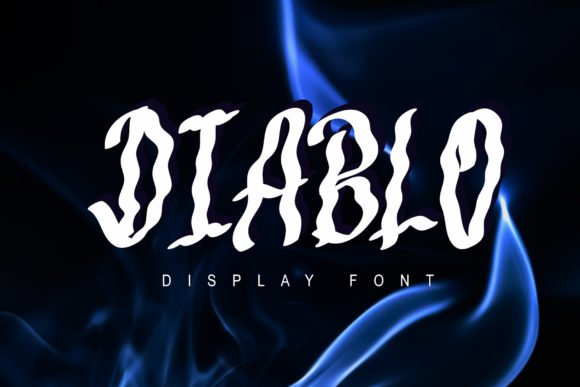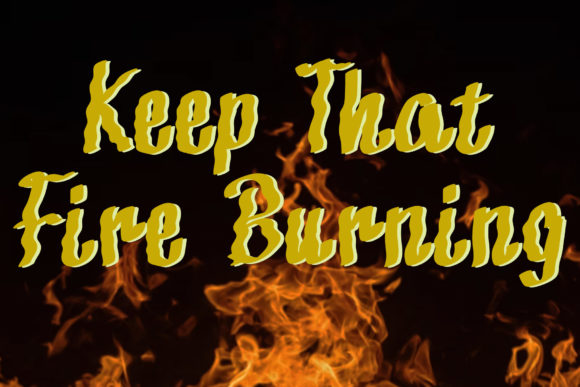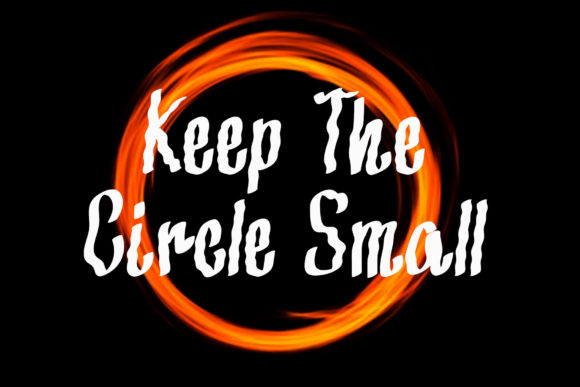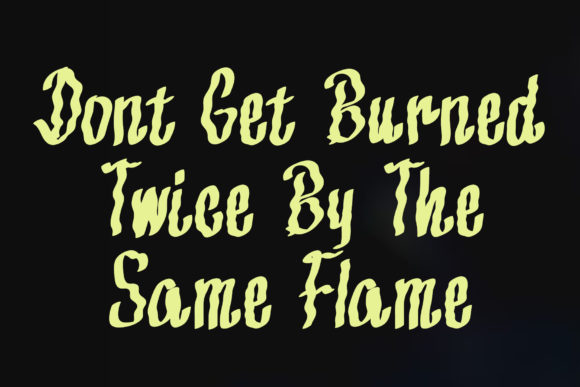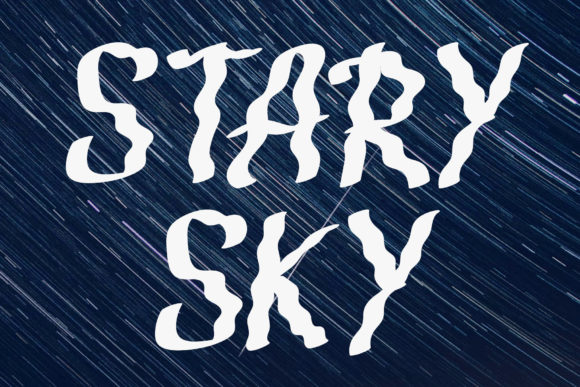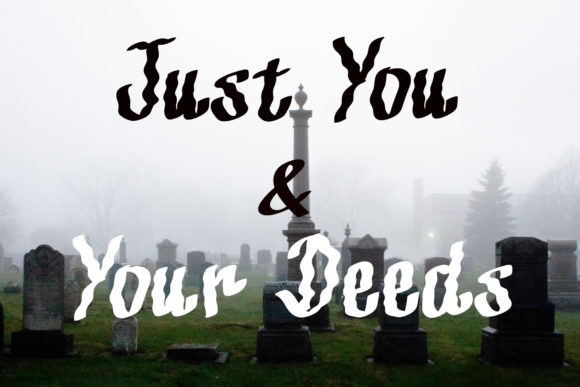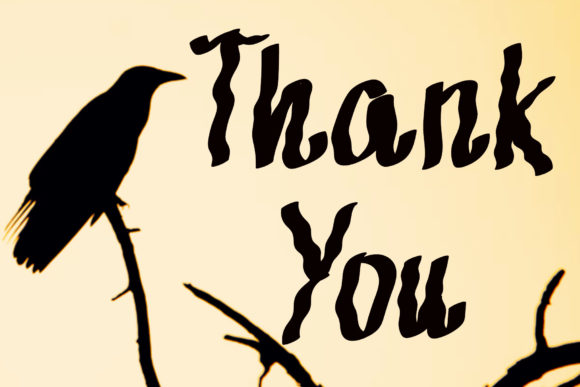
Adding a Touch of Uniqueness to Your Creations
Have you ever found yourself staring at a blank canvas, struggling to come up with the perfect design to bring your idea to life? You know the feeling – it’s a mix of excitement and frustration, all rolled into one. But what if I told you that there’s a font out there that can help spark your creativity and take your designs to the next level?
Meet the Diablo Font, a wavy and uniquely designed display font that’s perfect for adding a cool, unusual touch to your creations. Whether you’re working on a card, branding, label, or any other project, Diablo Font is the perfect addition to give it that extra oomph. As a designer, you know how valuable it is to have a versatile font that can elevate your ideas and make them stand out. With Diablo Font, you’ll have the freedom to experiment and push the boundaries of what’s possible.
Diablo Font Key Features
- Font Family: The Diablo font is a custom-designed font family, specifically created for the Diablo video game series.
- Size and Resolution: The font family includes multiple weights and styles, ranging from 8 to 72 points in size, with high resolution (up to 1024 dpi) for crisp and clear display.
- Unique Characteristics: The Diablo font is known for its gothic, medieval-inspired design, with intricate details and ornate flourishes, adding to the game’s dark fantasy atmosphere.
- Usage and Compatibility: The font is designed for use in digital applications, including video games, websites, and other interactive media, with compatibility across various platforms, including Windows, macOS, and Linux.
Diablo Font Review
When I first laid eyes on the Diablo Font, I knew it was something special. The unique blend of gothic and horror elements immediately caught my attention. ✨ The font’s dramatic flair and intricate details make it perfect for any project that needs a touch of darkness and mystery.
- ✨ The Diablo Font’s bold and striking design makes it perfect for headings and titles.
- ✨ The font’s ability to evoke a sense of mystery and horror makes it ideal for horror-themed games, movies, and books.
- ✨ The Diablo Font is highly customizable, allowing users to adjust the weight, width, and other parameters to suit their needs.
- ⚠️ The Diablo Font may be too dramatic or over-the-top for some projects, which could detract from the overall message.
- ⚠️ The font’s intricate details may be difficult to read in certain contexts, such as on small screens or in low-light environments.
Overall, I’m thoroughly impressed with the Diablo Font. Its unique design and high level of customization make it a valuable addition to any designer’s toolkit. While it may not be suitable for every project, it’s definitely worth considering for anything that needs a touch of darkness and mystery.
Tip: Use the Diablo font for bold and edgy designs, especially for gaming and fantasy-themed projects.
Tip: Use the Diablo font for creating bold, gothic-inspired typography and graphics.
Tip: Use the Diablo font for adding a touch of gothic elegance to your presentations and documents.
The Diablo font is commonly used for:
- Gaming and fantasy-themed projects.
- Horror and thriller-themed projects.
- Dark and edgy designs.
- Creating bold, gothic-inspired typography and graphics.